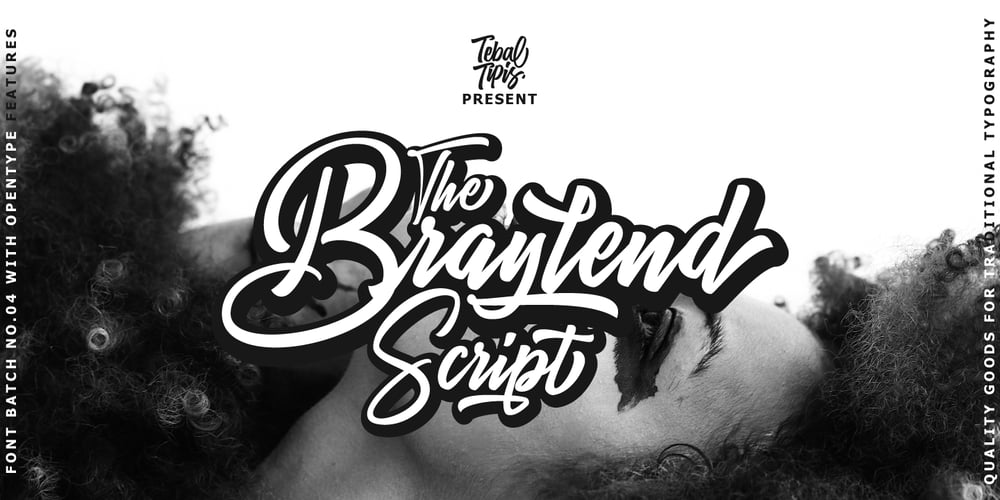
Braylend Script Font Family was designed by Dzulka Elfira and published by Tebaltipis Studio. Braylend Script contains 1 styles and family package options. TebTipsudio, Braylend is a script typeface with personality. You can use it as a logo, badge, insignia, packaging, headline, poster, etc The alternative characters in this font were divided into several OpenType features such as Stylistic Alternates, Stylistic Sets, and Ligature. The OpenType features can be accessed by using OpenType program such as Adobe Illustrator, Adobe Photoshop, and Adobe InDesign.